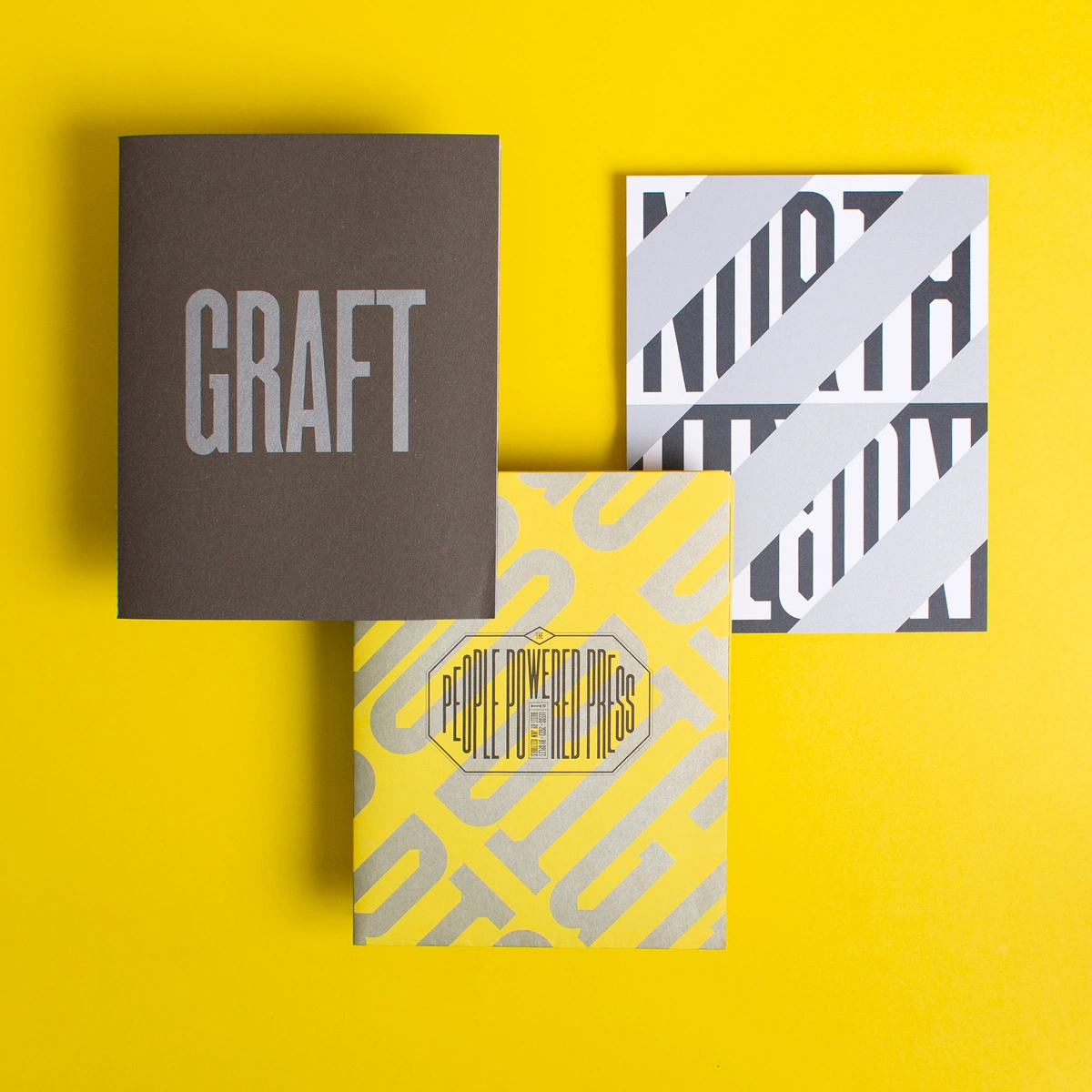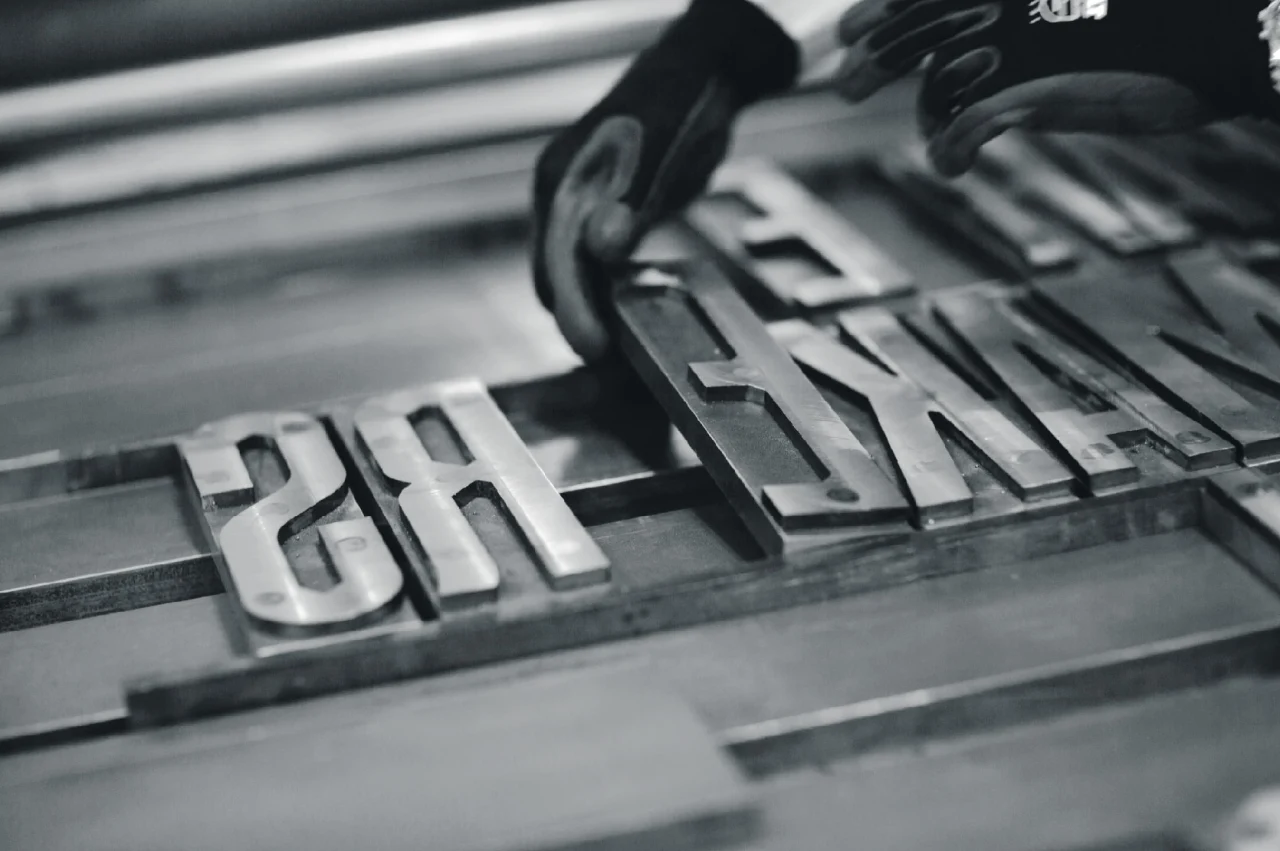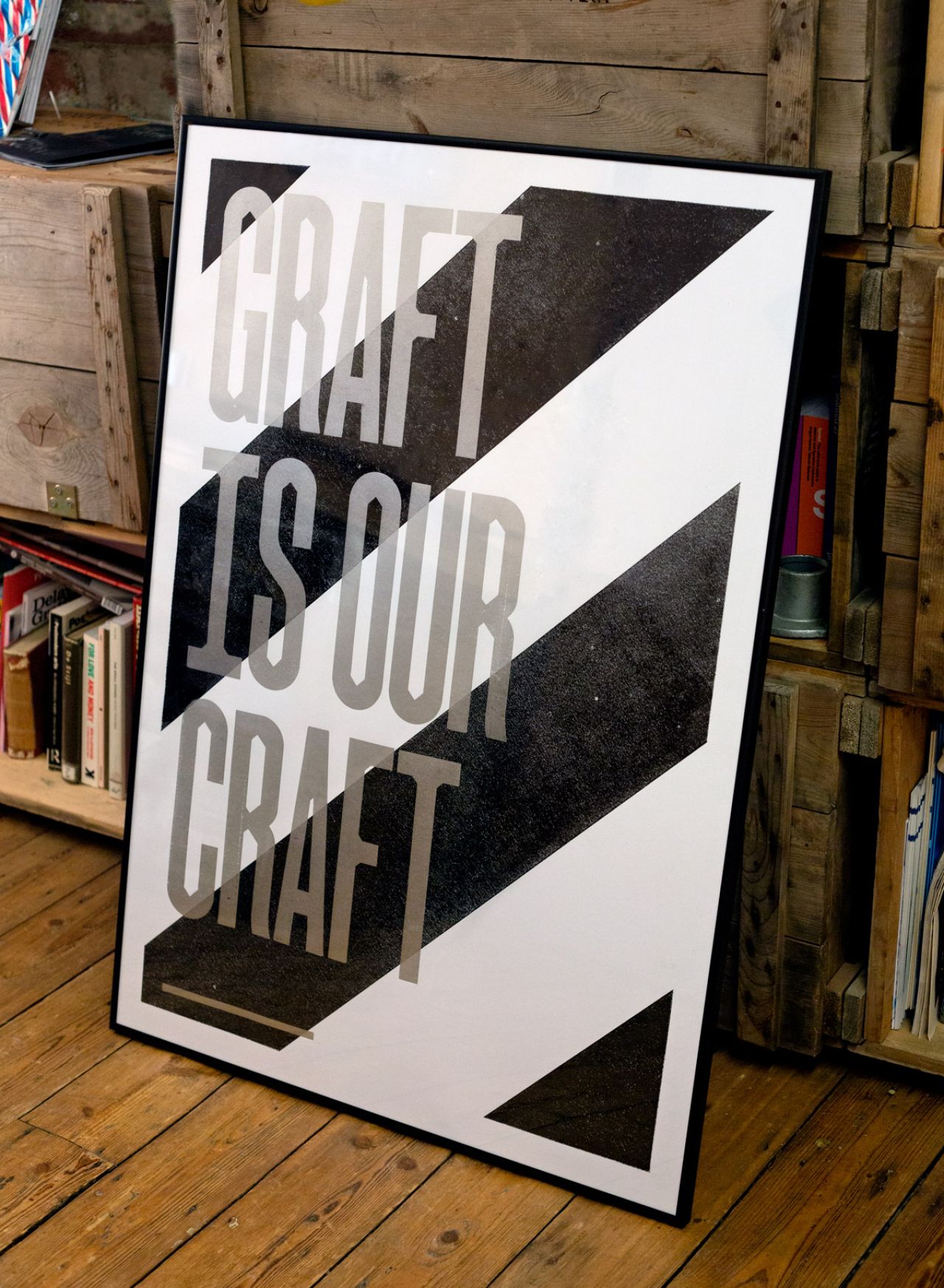
New typeface Graft summons the spirit of the North
Although not a separate political entity, the north of England is certainly a cultural one. And so this new typeface might be described as the most 'Northern' yet.
Graft is a condensed face designed by Leeds studio Split as a display face for its giant People Powered Press – recognised by Guinness as the largest letterpress printing press in the world.
The letterforms take inspiration from the north’s rich industrial heritage, using the shape of the cross section of a steel I-beam as their starting point. And now the typeface has been expanded for digital release in four weights and with an extensive character set.
Split has collaborated with paper company Fedrigoni and printers Pressision to create a sampler for Graft, which comes in a zip-perf folder, holding a singer stitched booklet and fold out poster that tells the story of the typeface’s design and how the People Powered Press came to be.
The sampler is printed throughout in black and metallic silver. Split has also created a limited edition set of prints using Graft on the People Powered Press.